There’s something undeniably commanding about gangster Old English fonts. Their ornate letterforms and dramatic thick-to-thin transitions create an immediate visual impact that’s impossible to ignore. I’ve incorporated these fonts into everything from album covers to brand identities, and they never fail to make a statement.
In this comprehensive guide, I’ll take you through the world of gangster Old English fonts, exploring their rich history, the psychology behind their impact, and showcasing the absolute best options available in 2026. Ready to add some serious typographic muscle to your design arsenal? Let’s dive in!
The 26 Best Gangster Old English Fonts in 2026
I’ve curated a selection of the most impactful gangster Old English fonts that are making waves in the design world this year. From traditional blackletter styles to modern interpretations, each one brings its own unique flavor of authority and edge.
Warsuck
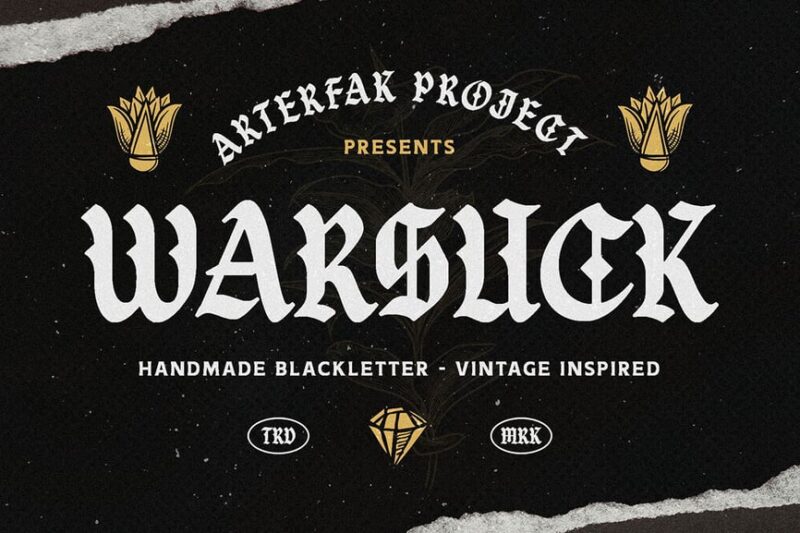
Warsuck is a bold, edgy blackletter font with a modern twist. Its sharp angles and dramatic strokes make it perfect for underground and gothic-inspired designs, ideal for album covers or alternative branding projects.
Konstans
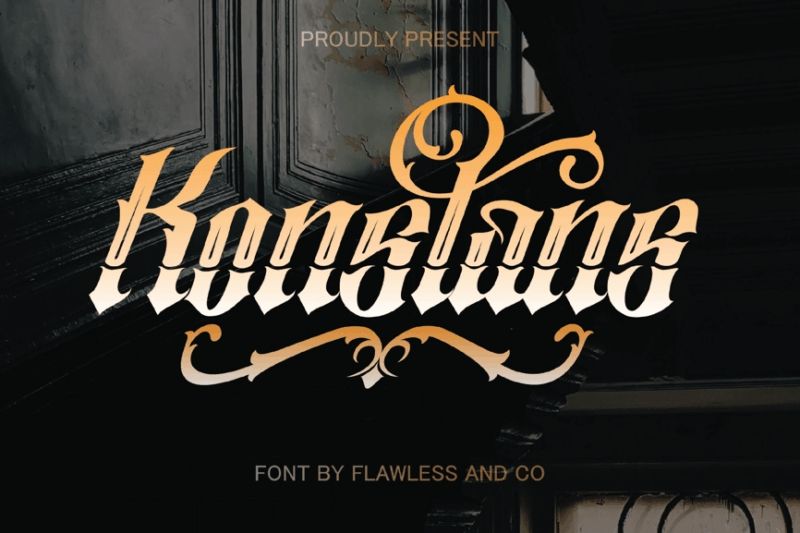
Konstans is a versatile blackletter font with a tattoo-inspired aesthetic. Its ornate details and fluid strokes make it suitable for both traditional and contemporary designs, especially in the realm of body art and alternative fashion.
Black Spell
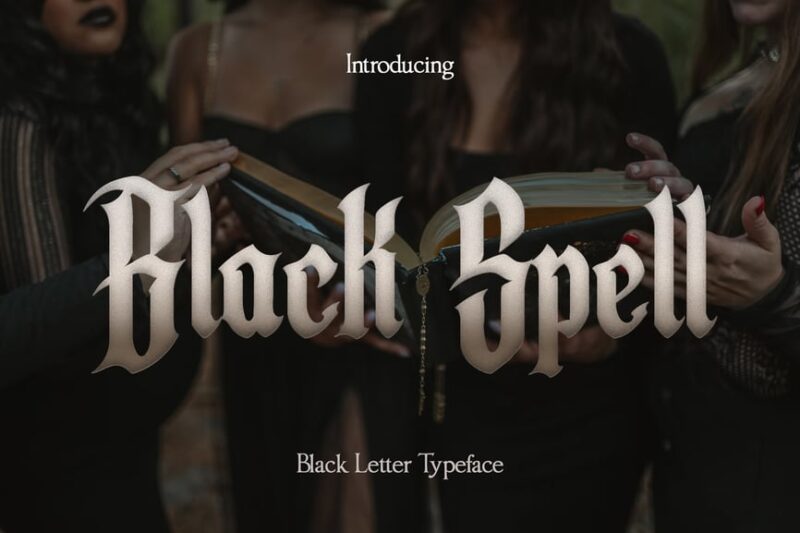
Black Spell is a dramatic blackletter typeface that evokes a sense of mystery and old-world charm. Its intricate letterforms and gothic influences make it ideal for projects requiring a touch of historical elegance or dark romanticism.
Runkick
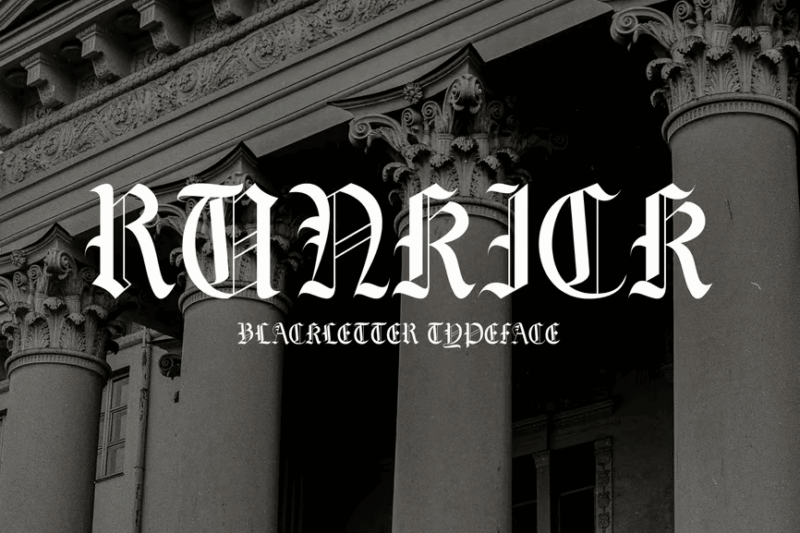
Runkick combines blackletter style with a vintage flair, creating a unique and eye-catching font. Its bold strokes and slight irregularities give it a handcrafted feel, perfect for retro-inspired designs or branding with an edge.
Killuminati
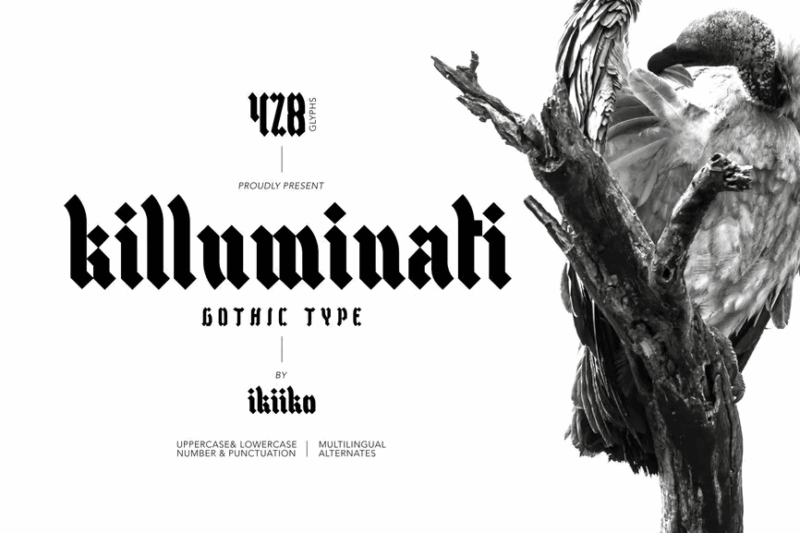
Killuminati is a powerful gothic typeface that commands attention. Its sharp serifs and bold structure make it an excellent choice for display purposes, particularly in designs that aim to convey strength, mystery, or a touch of the occult.
Cambridge
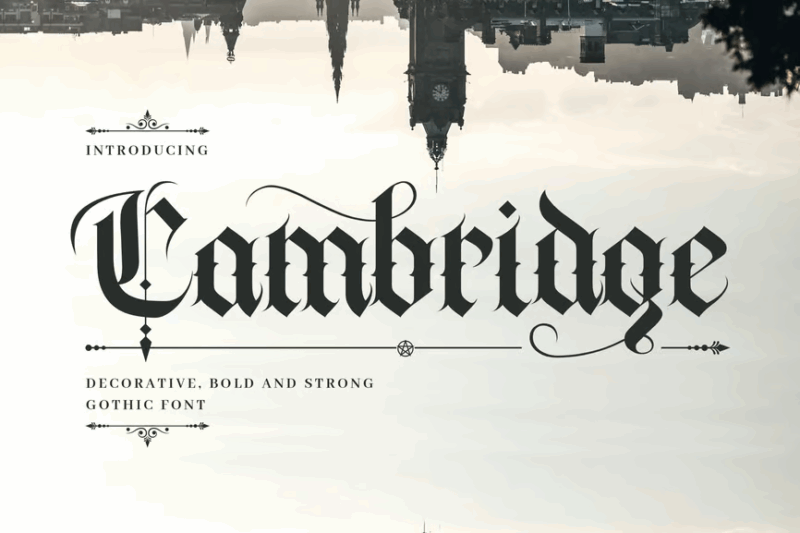
Cambridge is a bold, decorative gothic font that balances traditional blackletter elements with modern readability. Its strong presence and ornate details make it suitable for headlines, logos, and designs that require a touch of historical gravitas.
Clandy
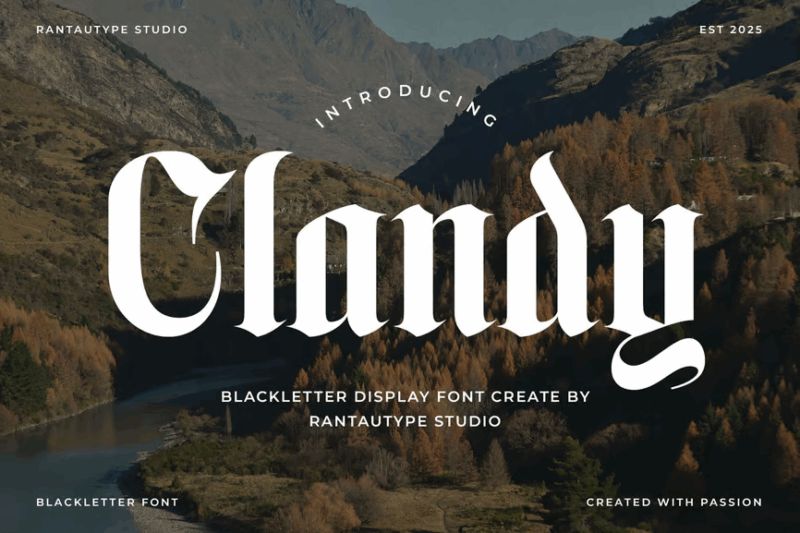
Clandy is a blackletter display font that combines old-world charm with contemporary design sensibilities. Its elegant curves and sharp angles create a striking contrast, making it ideal for projects that blend traditional and modern aesthetics.
Blacksword
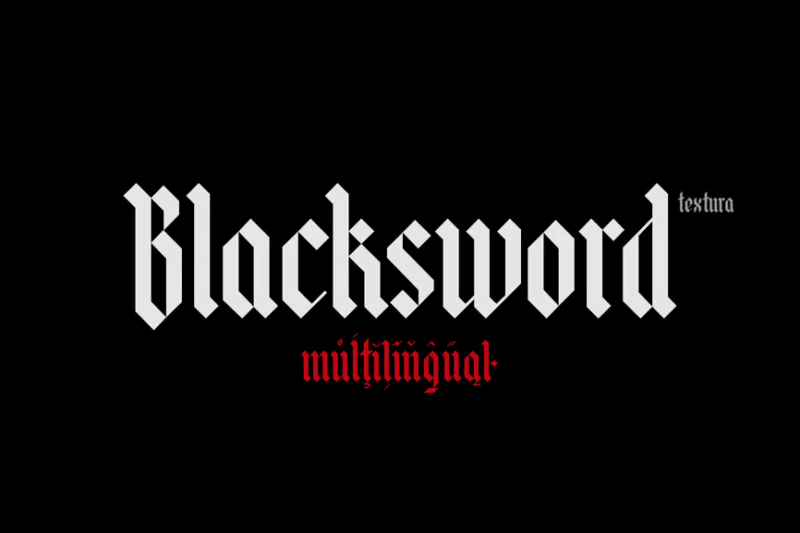
Blacksword is a gothic-inspired font with a fierce and dramatic appearance. Its sharp, sword-like strokes and bold presence make it perfect for designs that need to convey power, strength, or a dark, edgy atmosphere.
CS Bristol
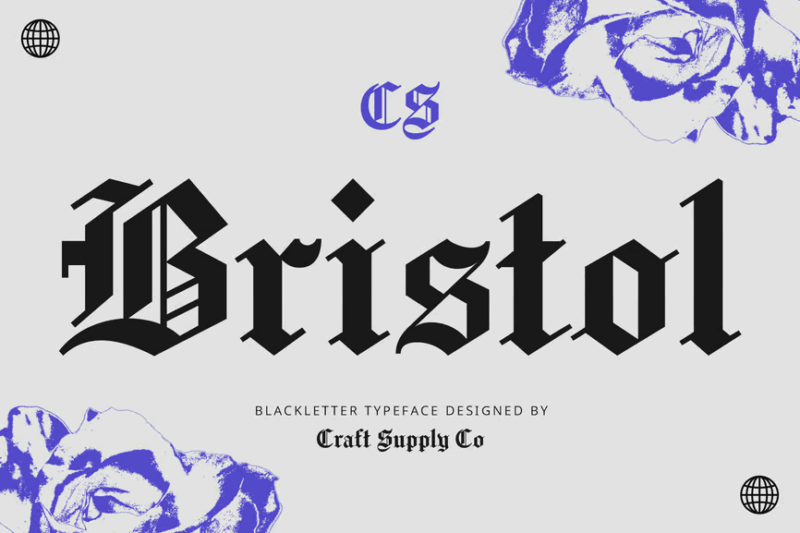
CS Bristol is a classic blackletter font that exudes elegance and tradition. Its well-balanced letterforms and subtle decorative elements make it versatile for both formal designs and projects that require a touch of historical authenticity.
HACDOTH BECTH
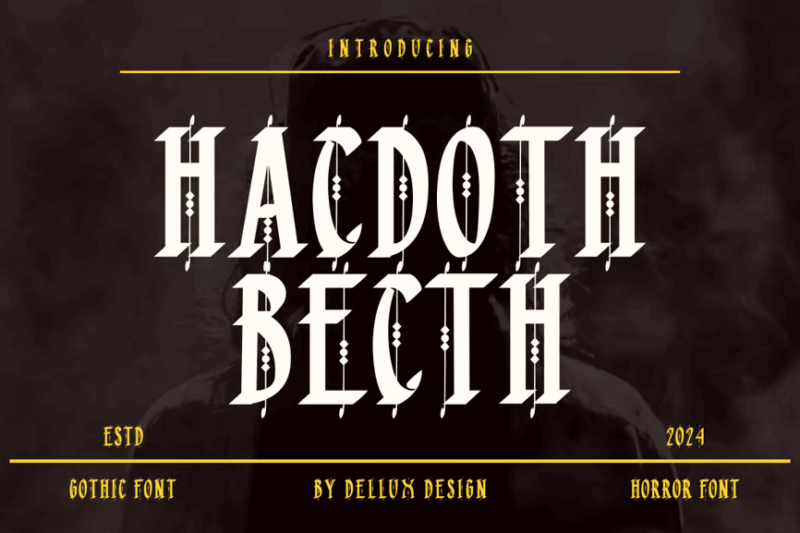
HACDOTH BECTH is a striking blackletter font with a strong gothic influence. Its intricate details and bold presence make it ideal for creating impactful headlines or logos, especially in designs that aim to evoke a sense of mystery or ancient power.
Deviella
Deviella is a modern take on gothic display fonts, infused with a punk aesthetic. Its angular forms and unconventional letter shapes make it perfect for edgy, alternative designs or projects that require a bold, rebellious statement.
Maythen
Maythen is a beautifully crafted blackletter font with a touch of elegance. Its flowing lines and balanced proportions make it suitable for a wide range of design projects, from traditional to contemporary, where a touch of sophistication is desired.
Oolivar Strenya
Oolivar Strenya is a gothic blackletter font with a distinct tattoo-inspired aesthetic. Its bold strokes and intricate details make it perfect for designs that require a strong, expressive typeface, particularly in the realms of body art and alternative fashion.
Whether you’re designing for the music industry, streetwear, or any brand looking to project confidence and authenticity, gangster Old English fonts deserve a place in your toolkit. Their storied past and ongoing cultural relevance ensure they’ll continue commanding respect well into the future.